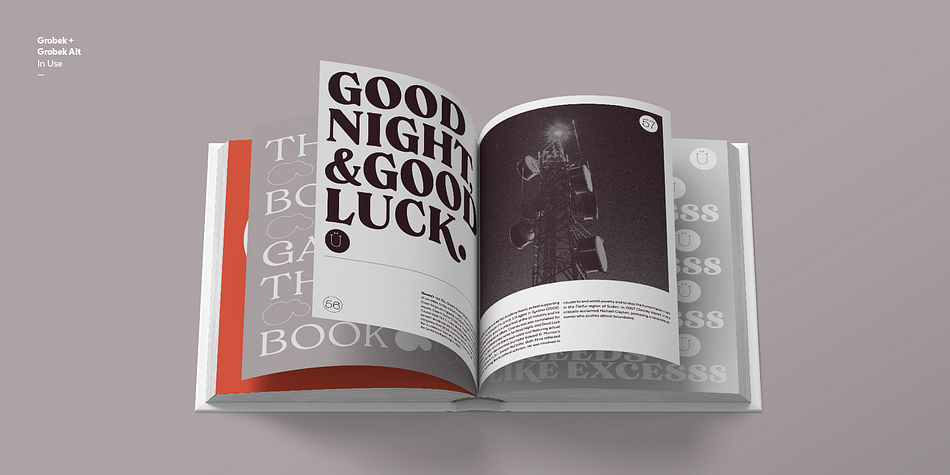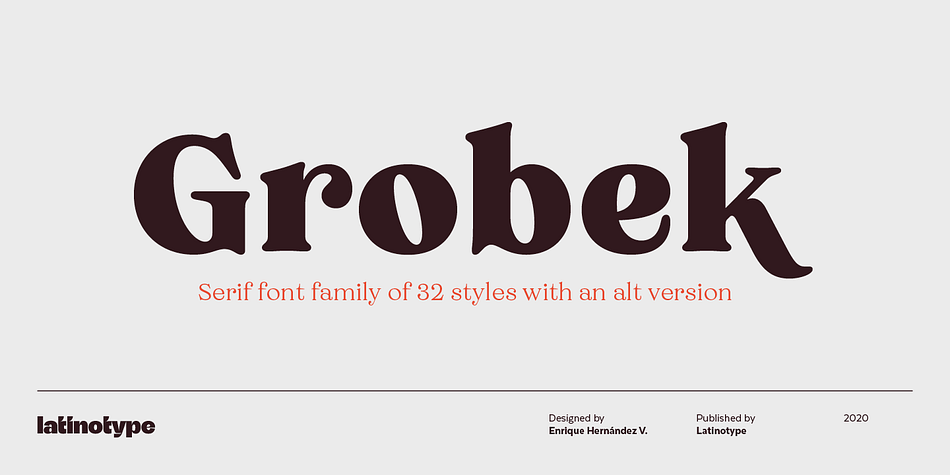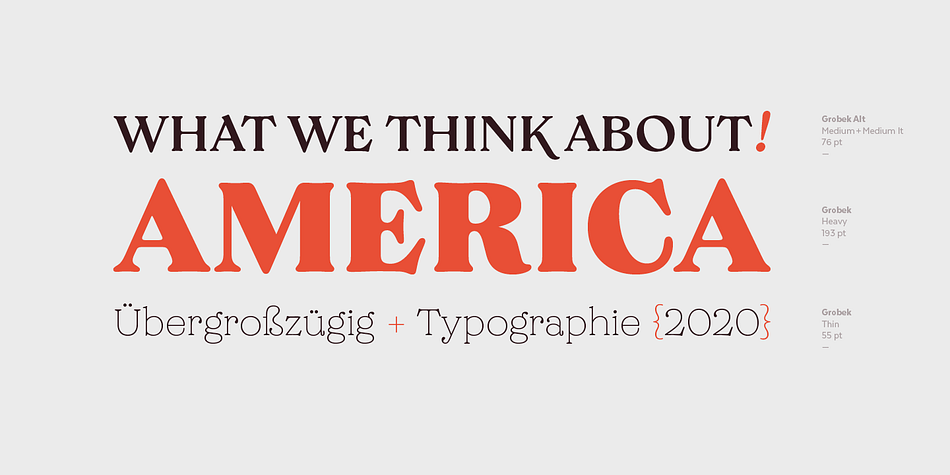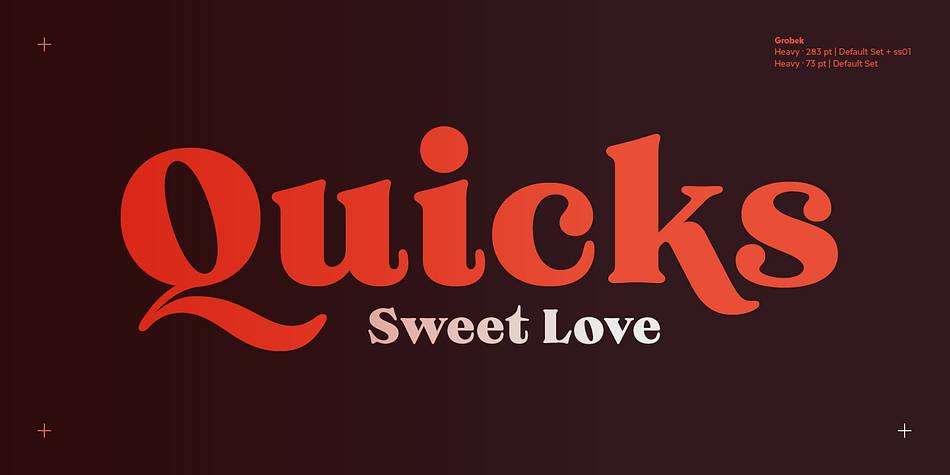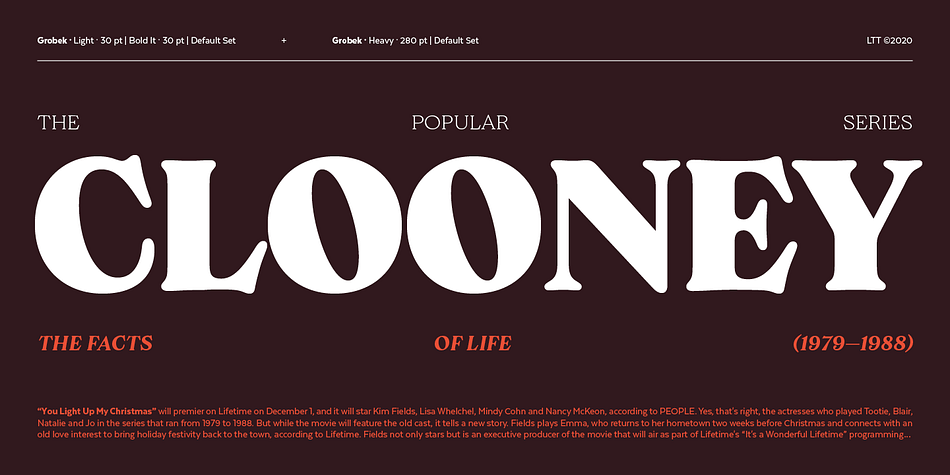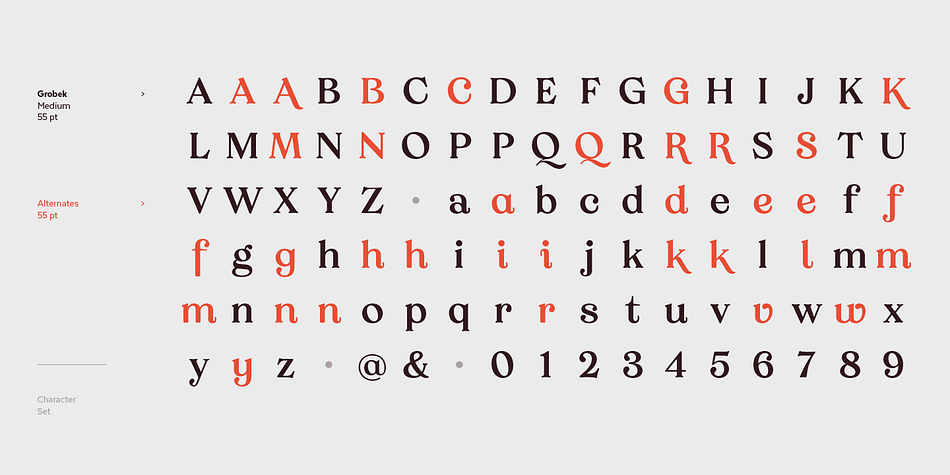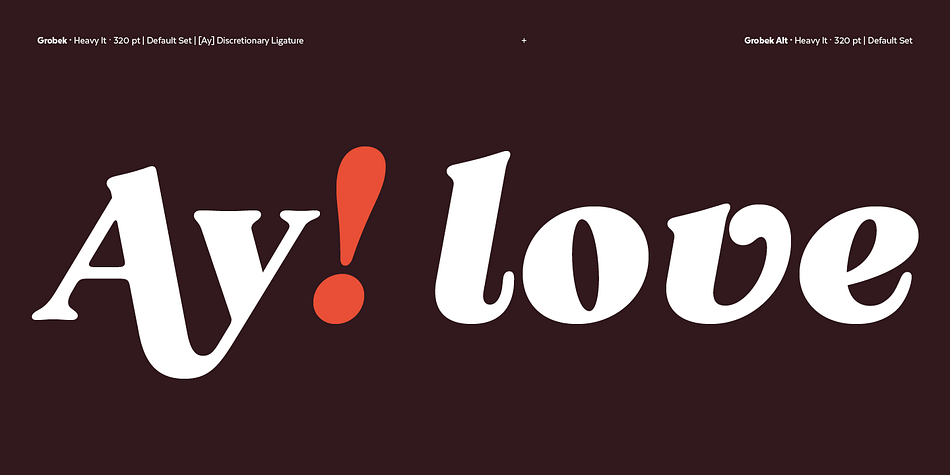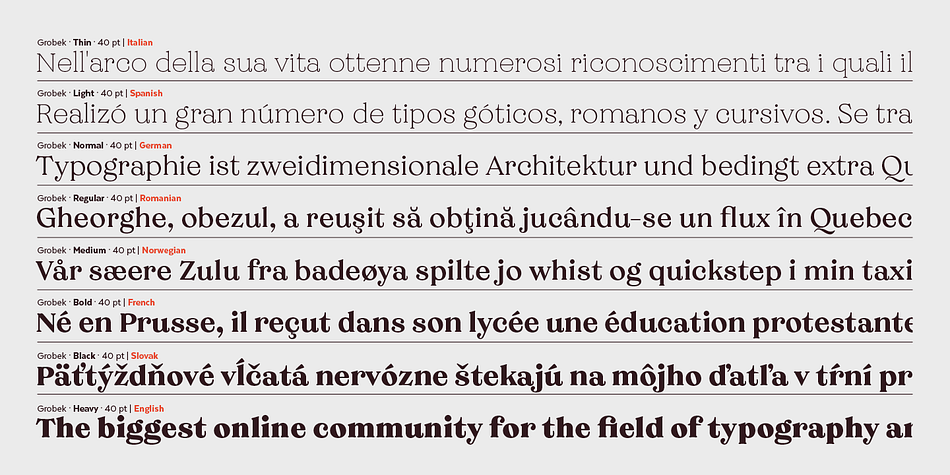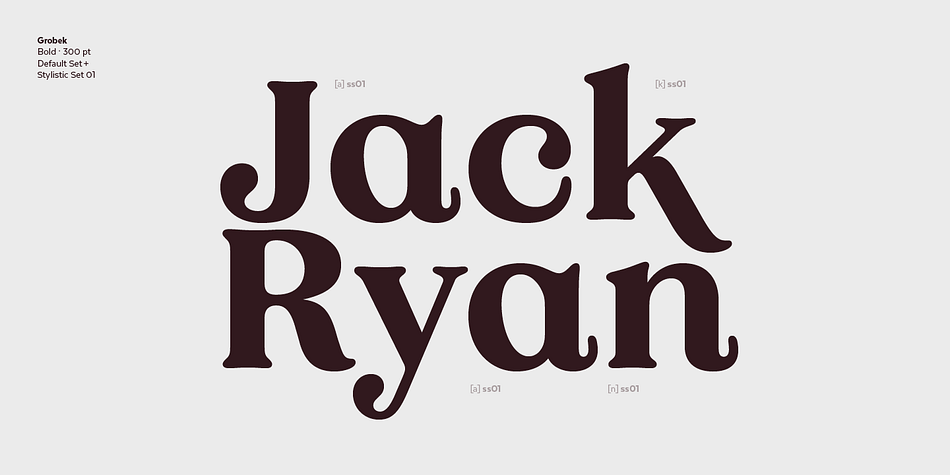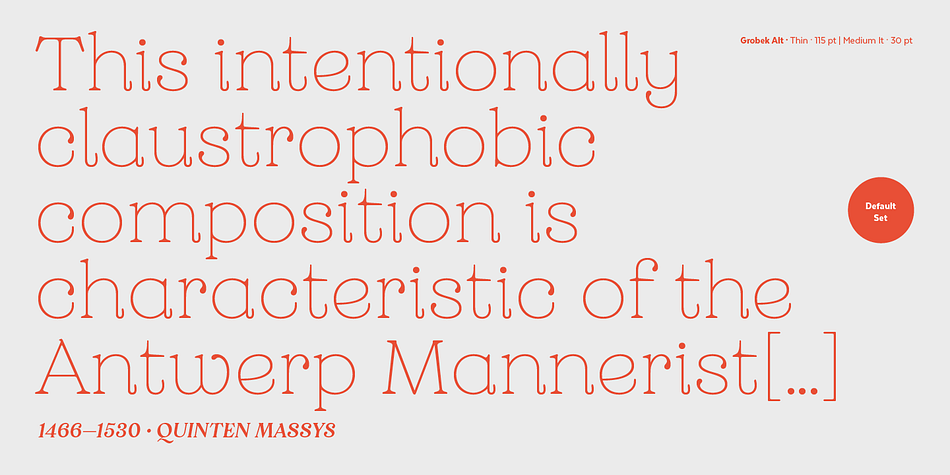
Designed by Enrique Hernandez, Grobek is a display serif and serif font family. This typeface has thirty-two styles and was published by Latinotype.
Grobek is a serif typeface inspired by Garamond and American Typewriter fonts as well as classic 15th century typefaces. Its main features are a diagonal stress and soft curved teardrop shape terminals.
Grobek comes in 8 weights, from Thin to Heavy, with matching italics- 32 styles in all. The font consists of 2 subfamilies: the basic family is classic yet contemporary while the alternative version has a stronger personality and allows more design freedom.
Grobek is ideal for short text and paragraphs, and specially designed for logos, branding, editorial design and web use. This font contains 576 characters that support over 200 Latin-based languages.